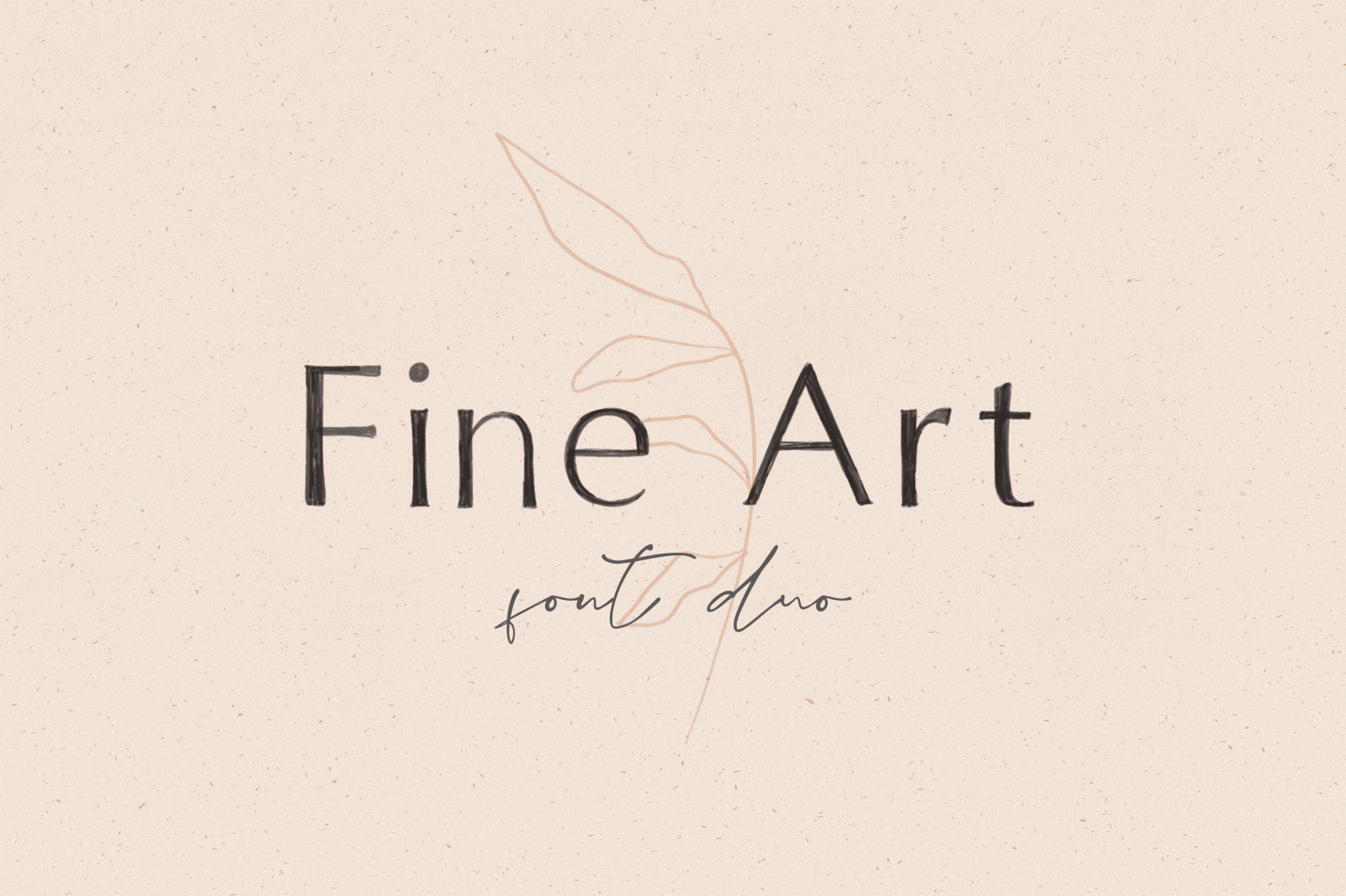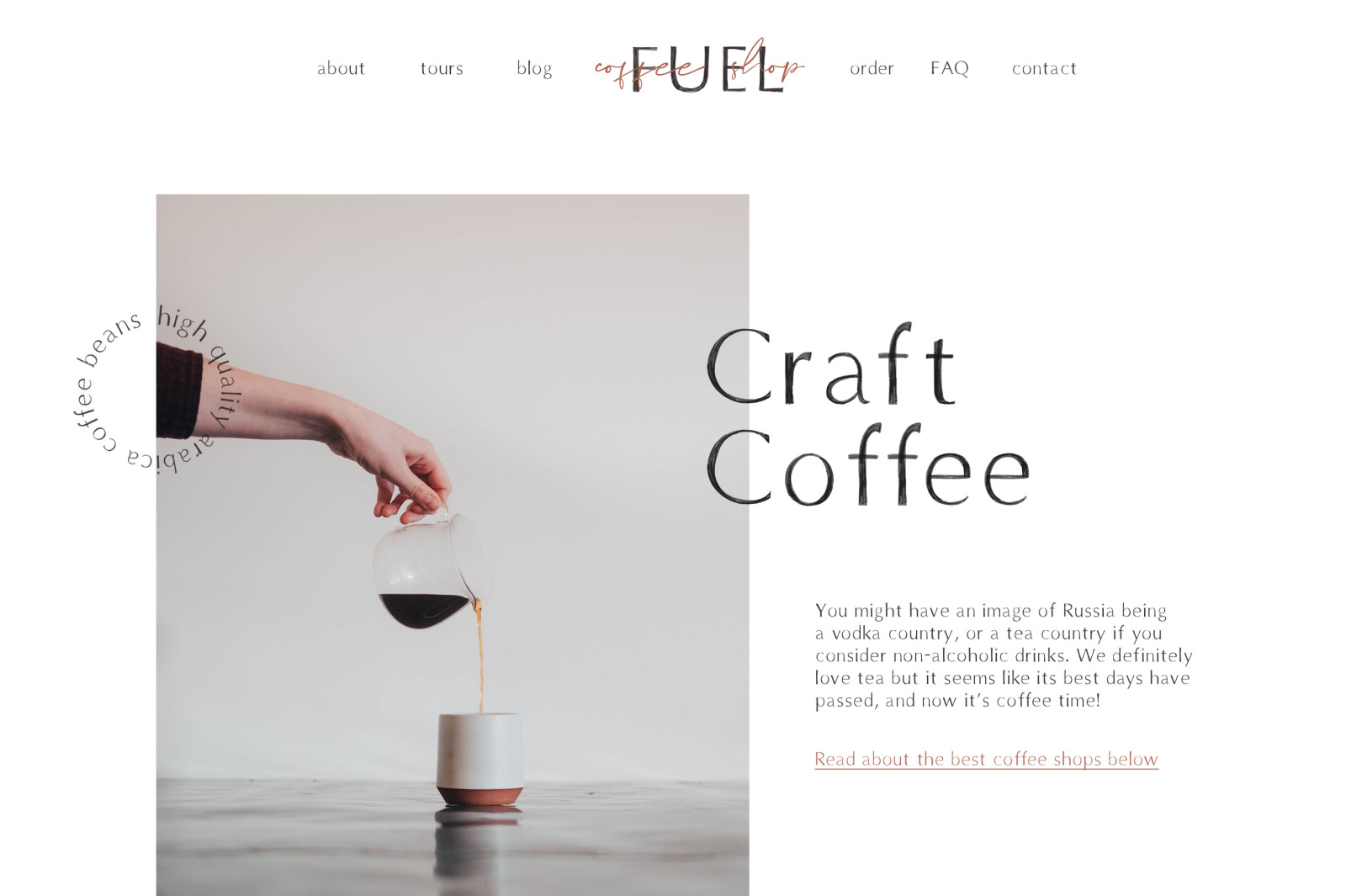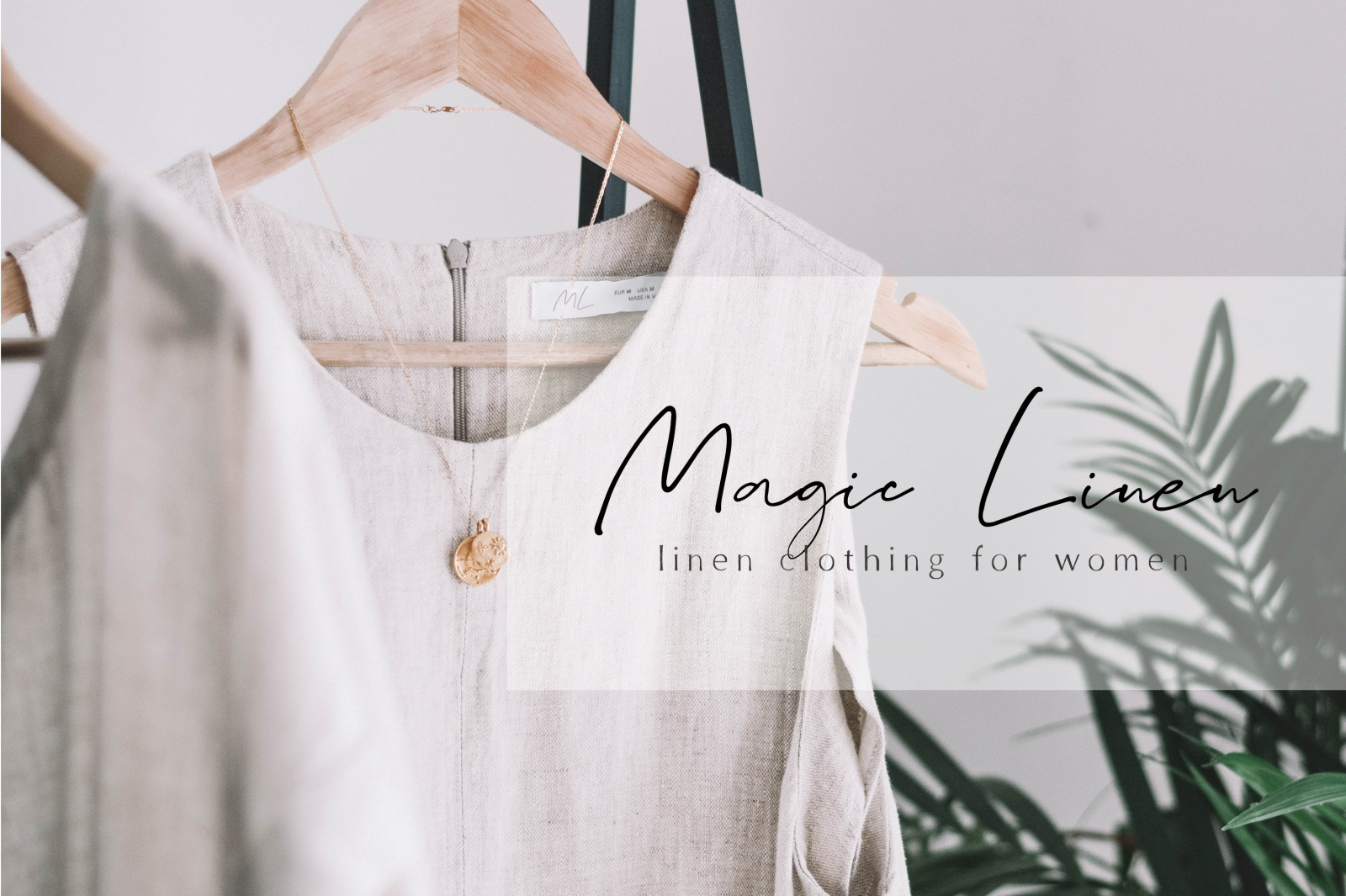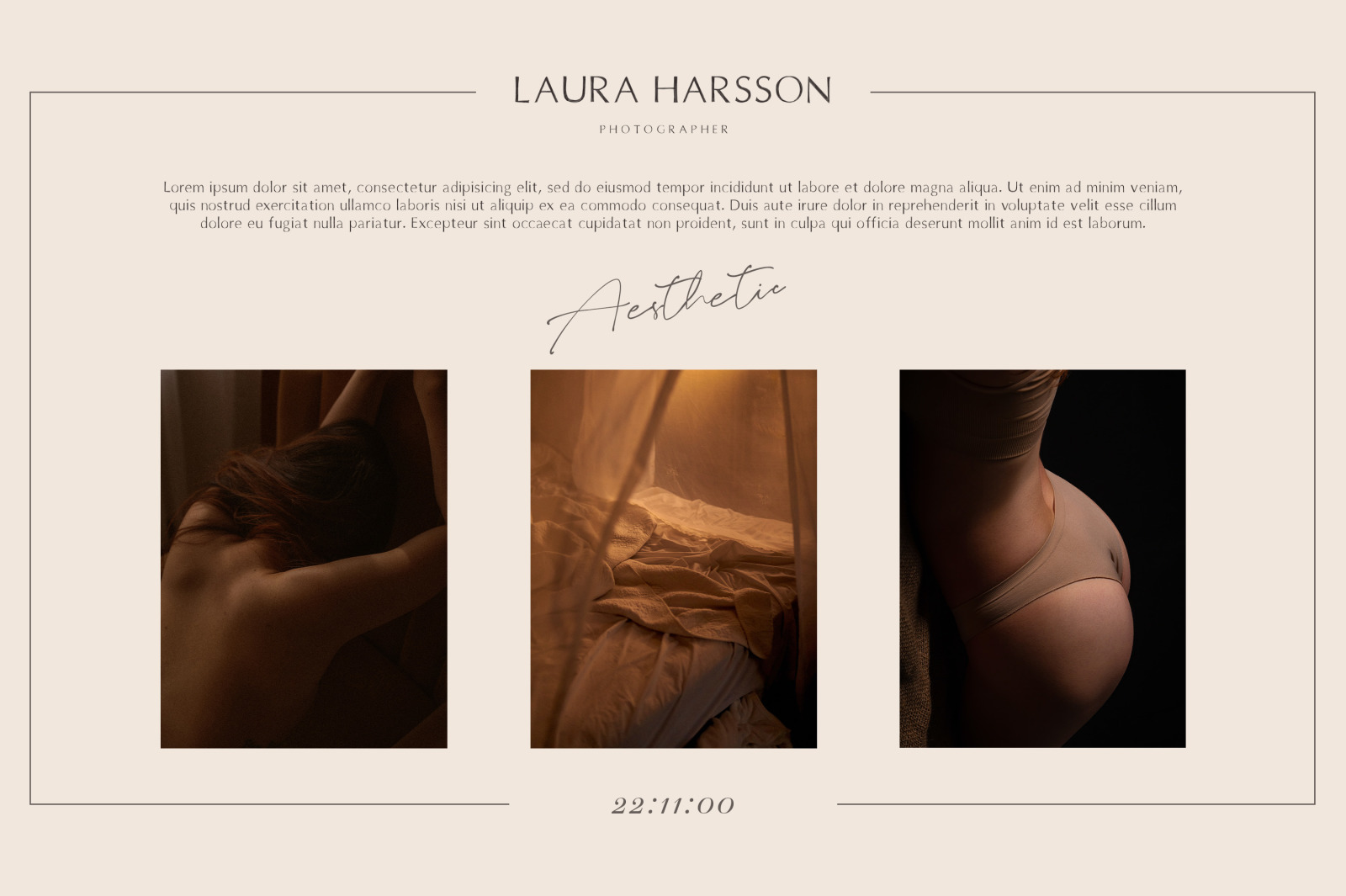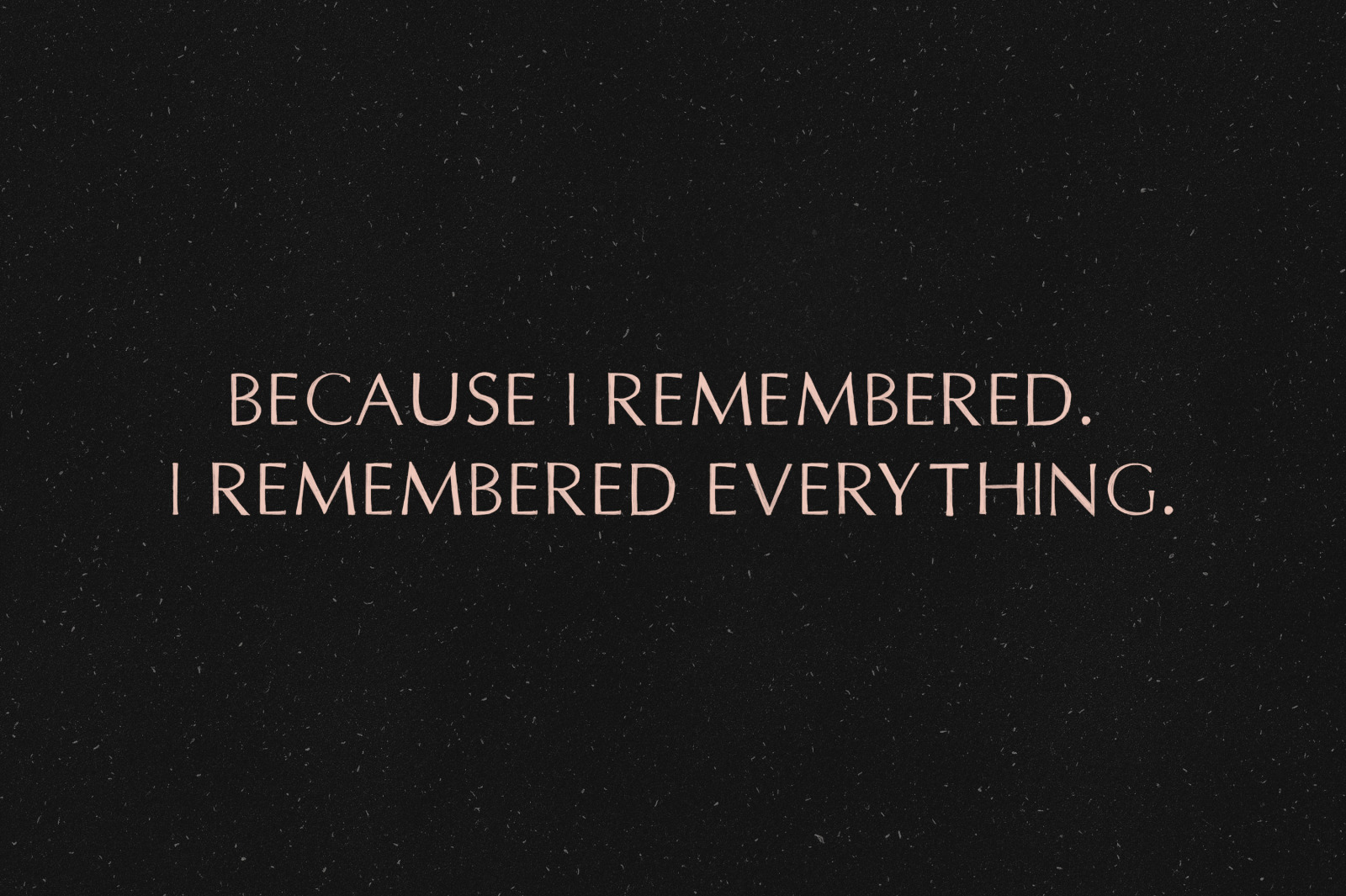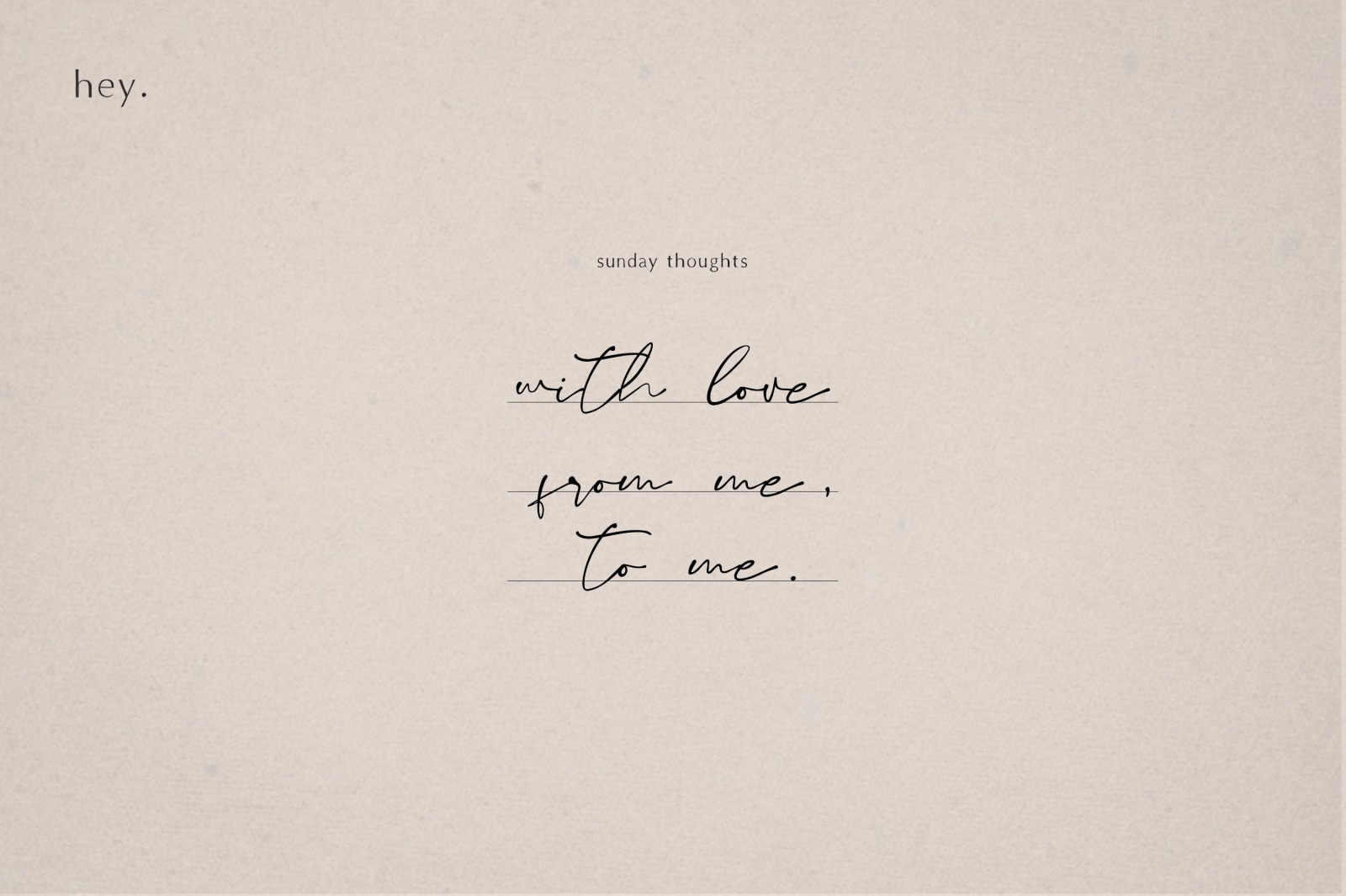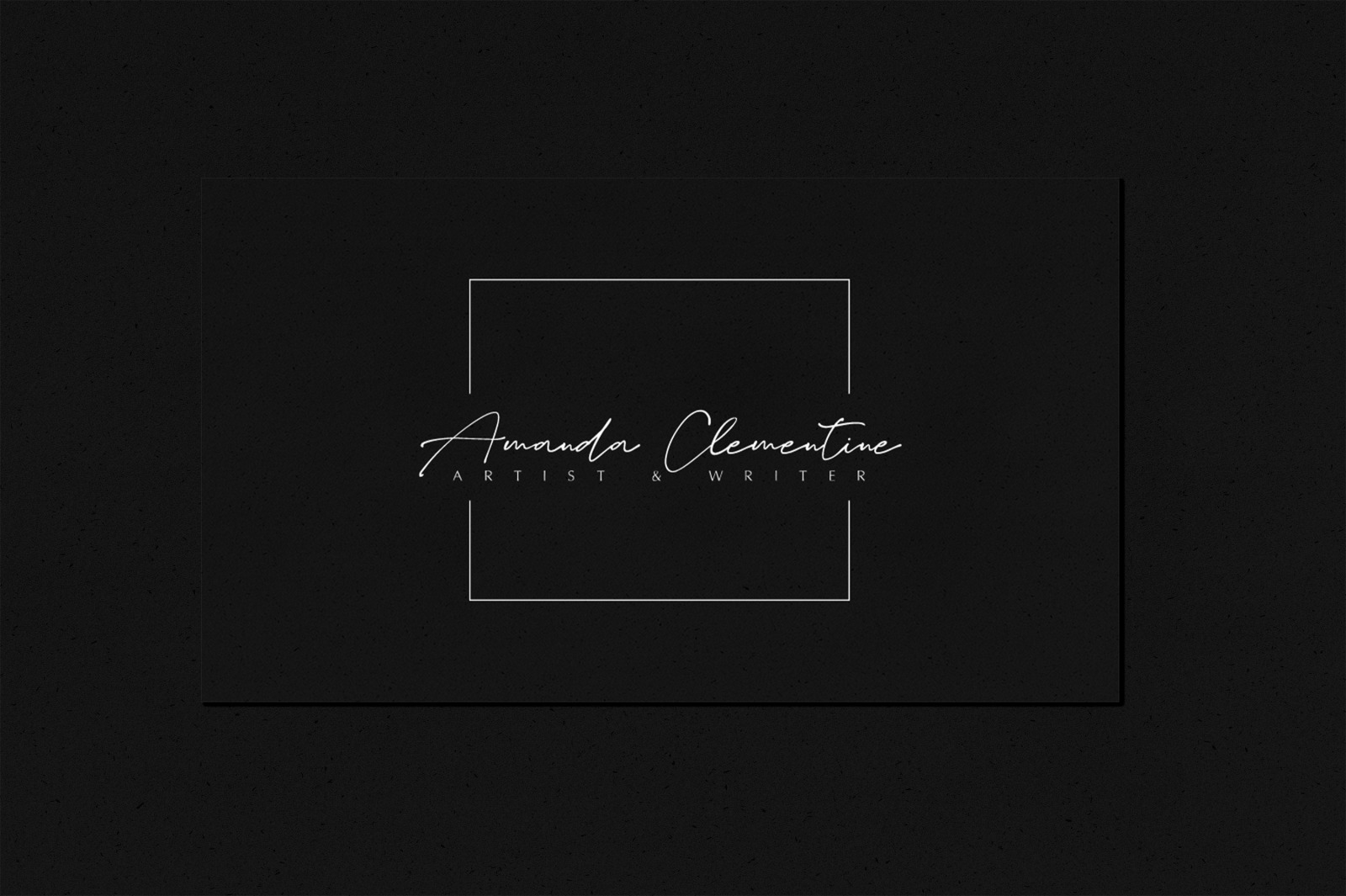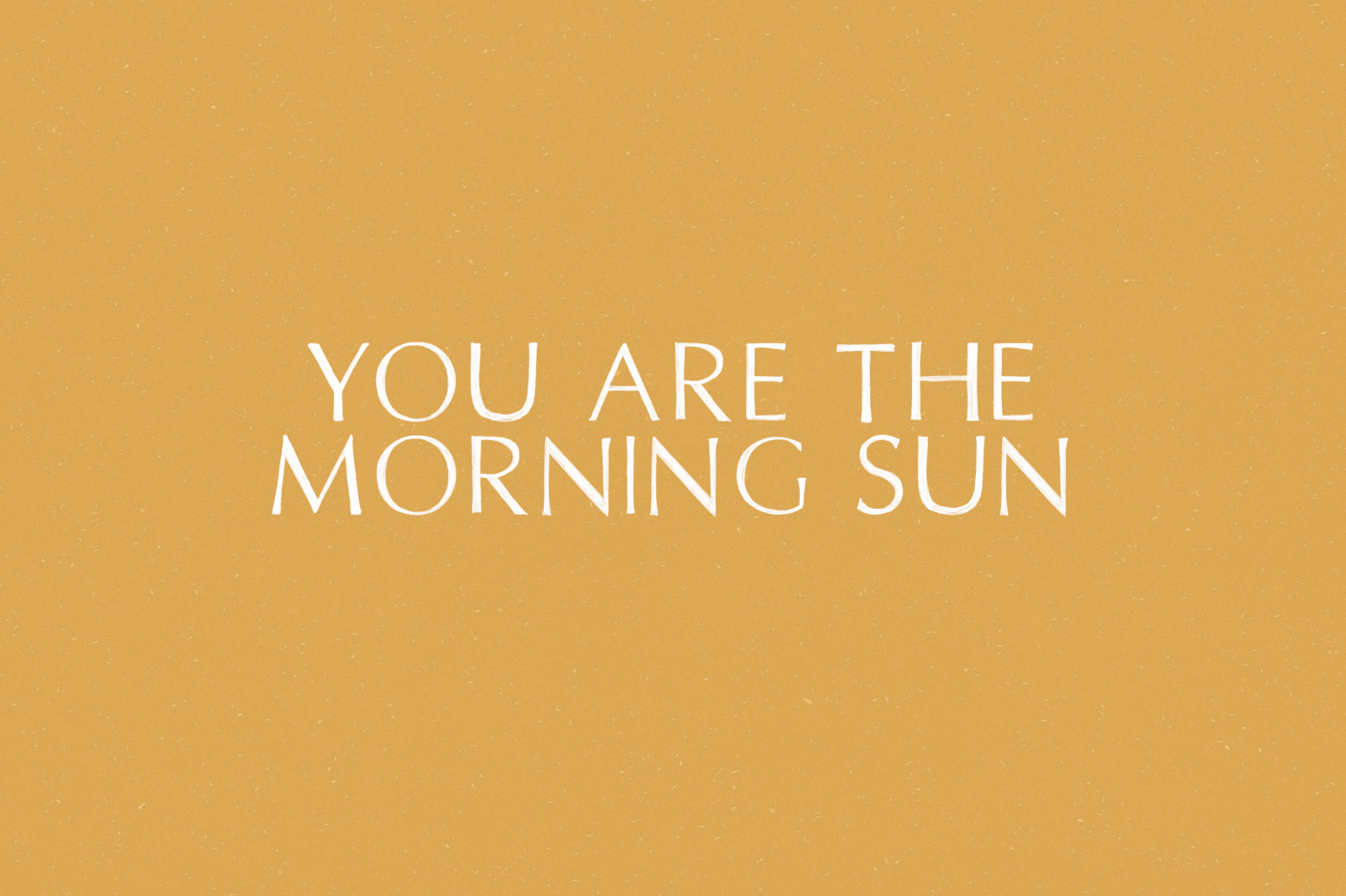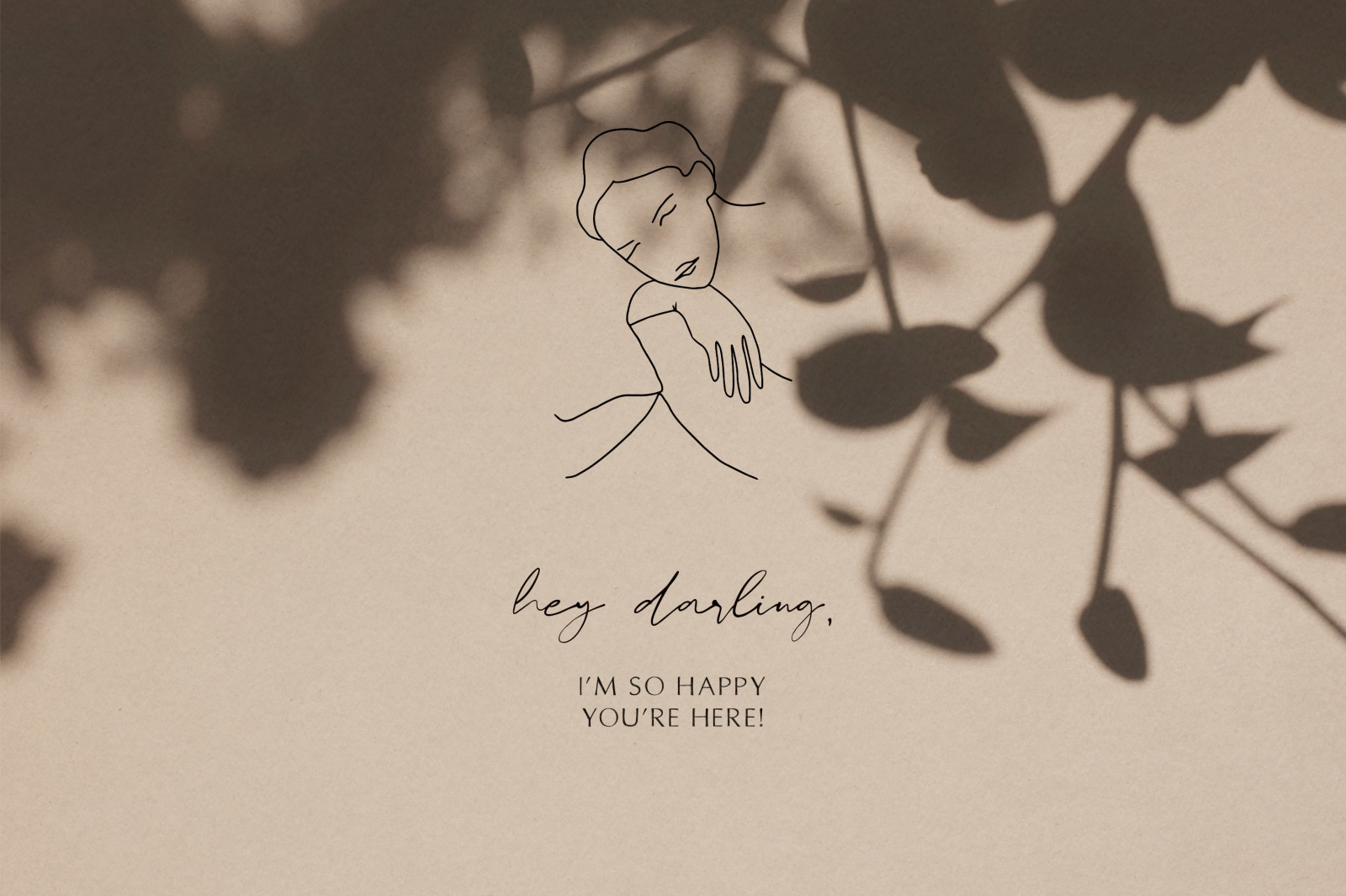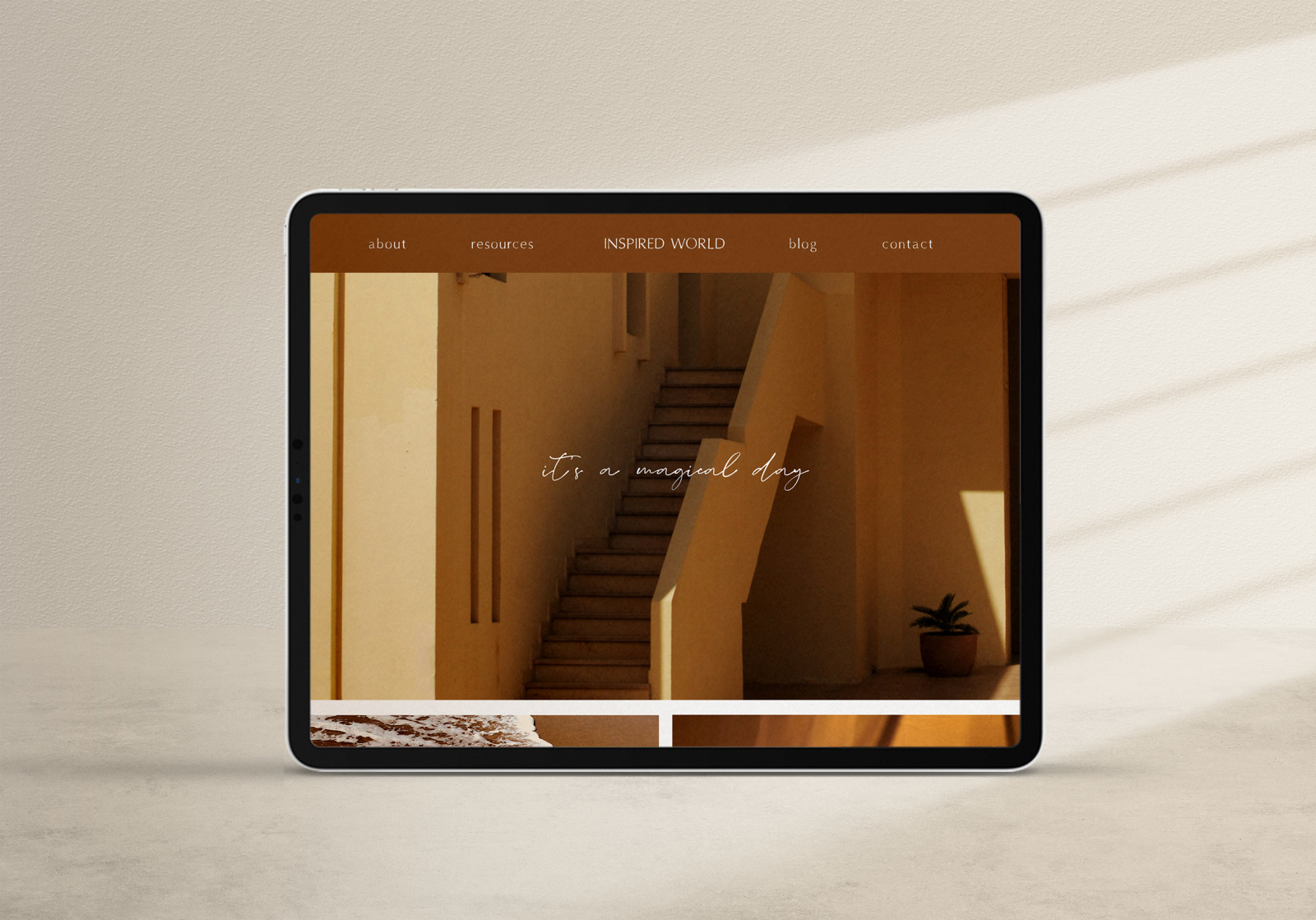
Fine Art Font Duo
Fine Art is an aesthetic font duo. Charmy & elegant design. Perfectly suited to logo, branding, signature, wedding cards, packaging design, stationery, website design and more.
All the letters of Fine Art Sans Serif are raster bitmap font - each letter has been painted a dozen of times.